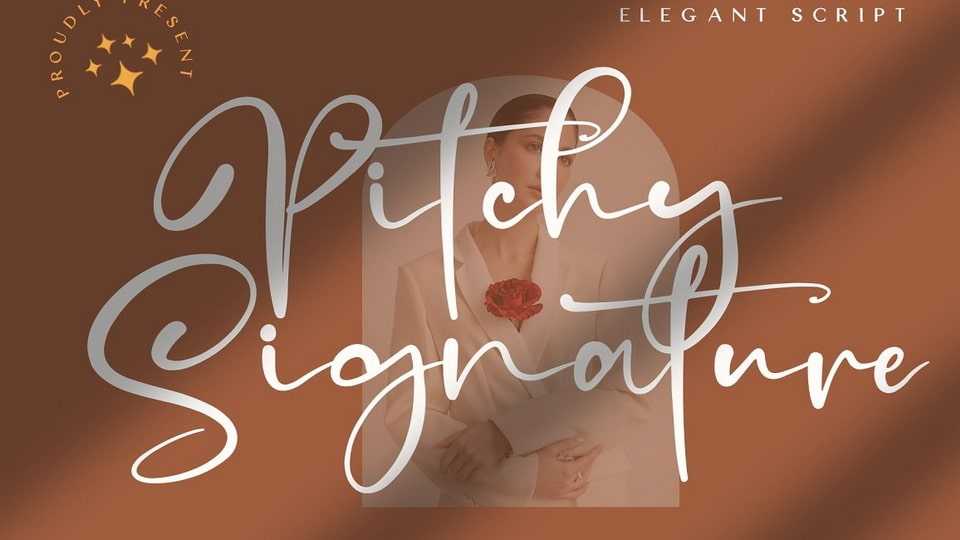
Download Pitchy Signature font, a lovely and delicate script typeface that exudes elegance and class. Pitchy Signature font was particularly crafted for those who need a beautiful and refreshing look to their designs.